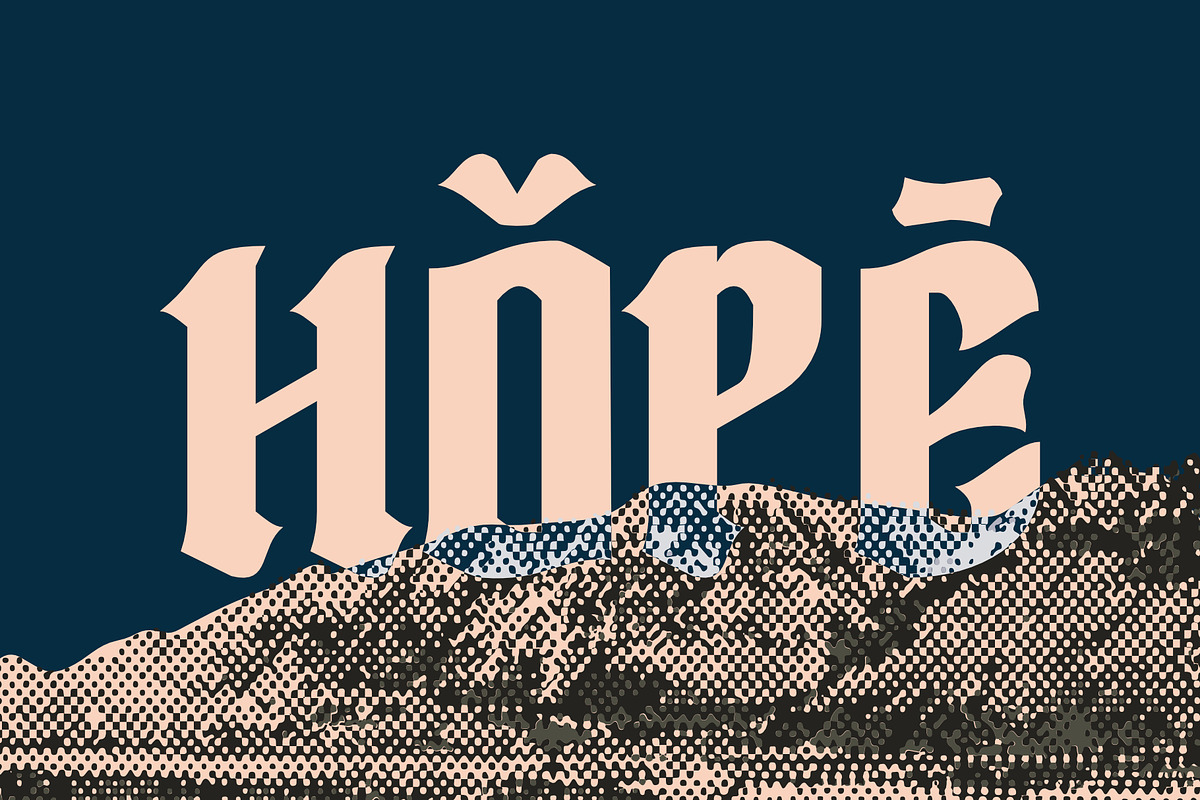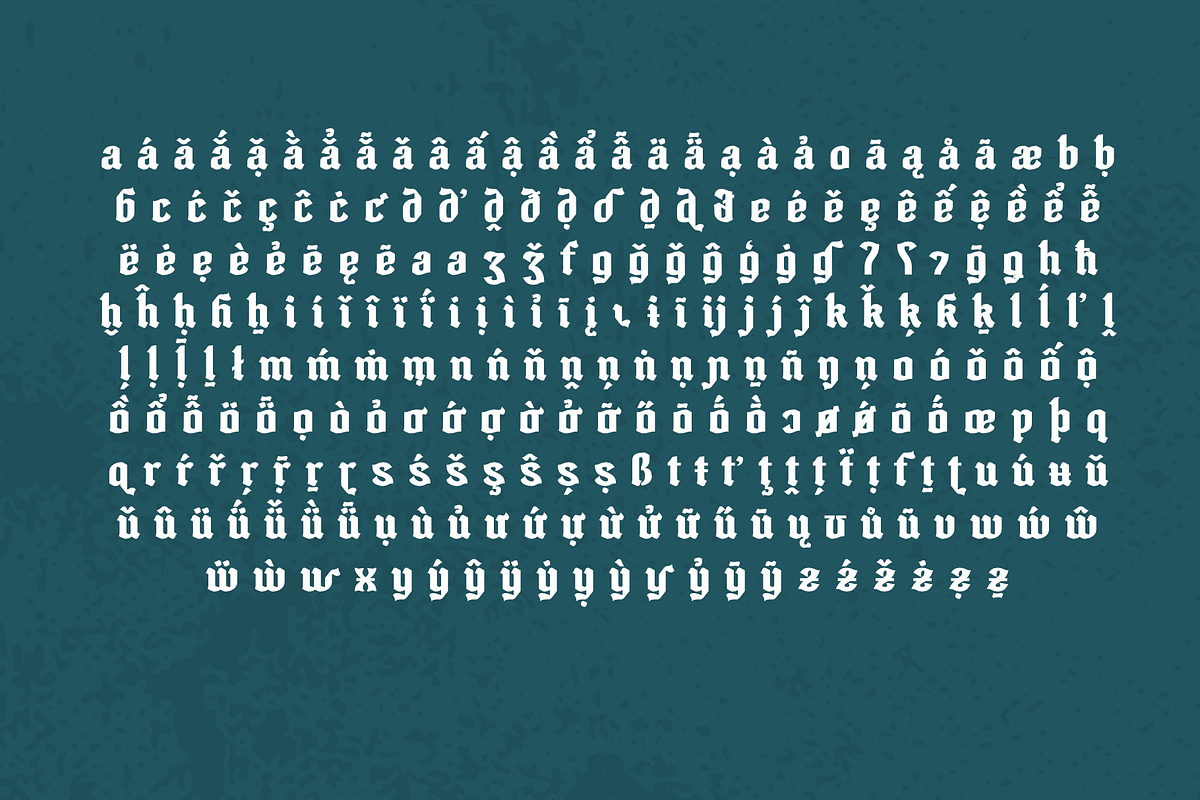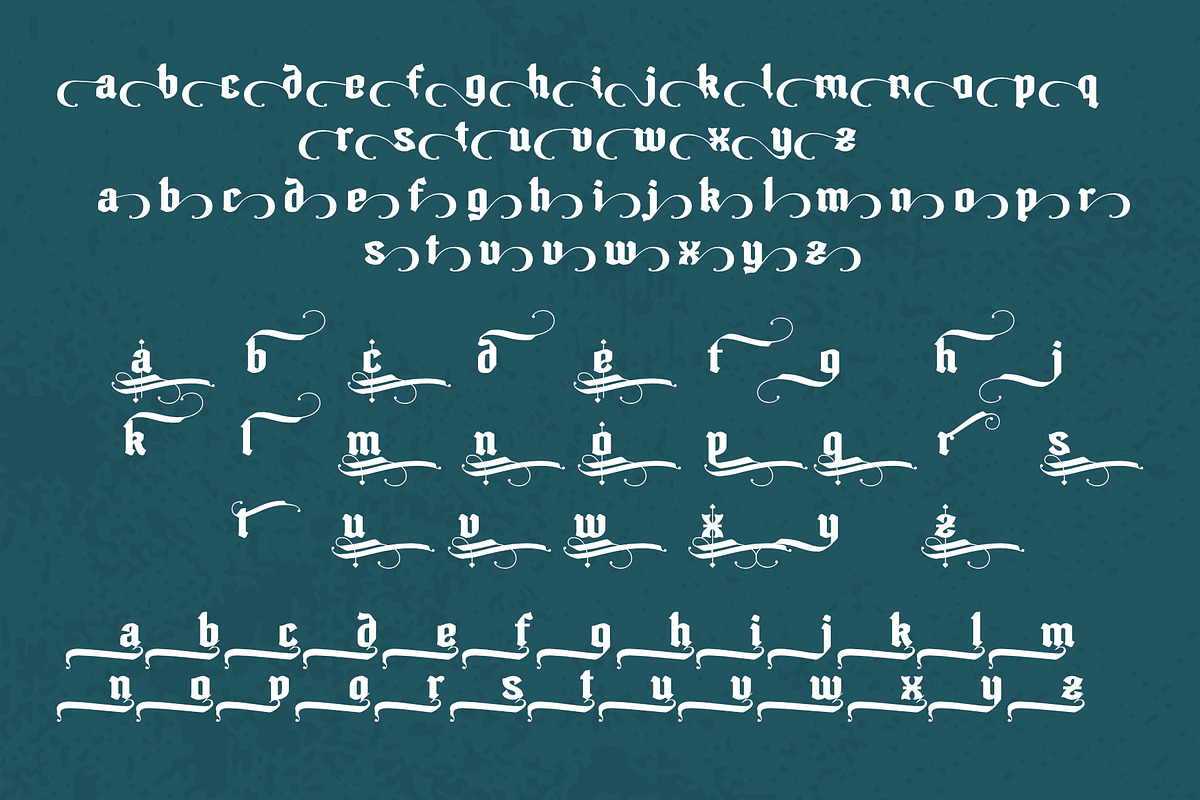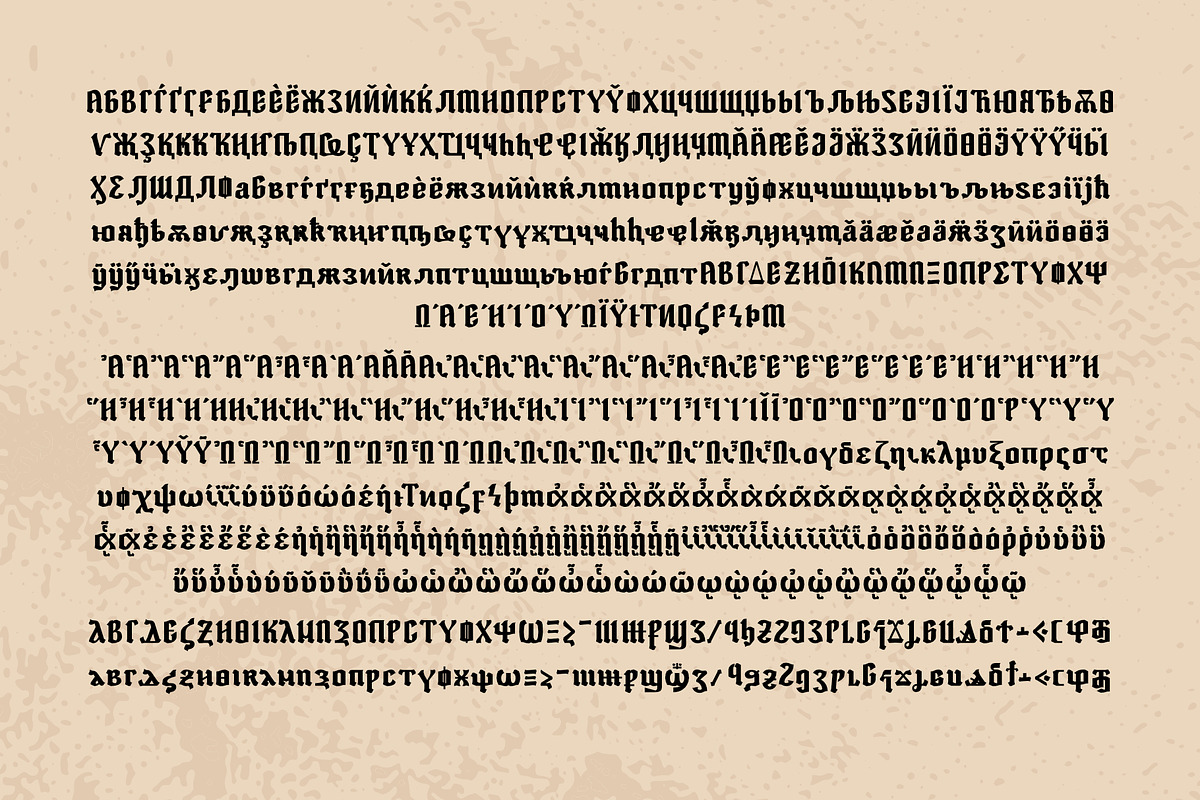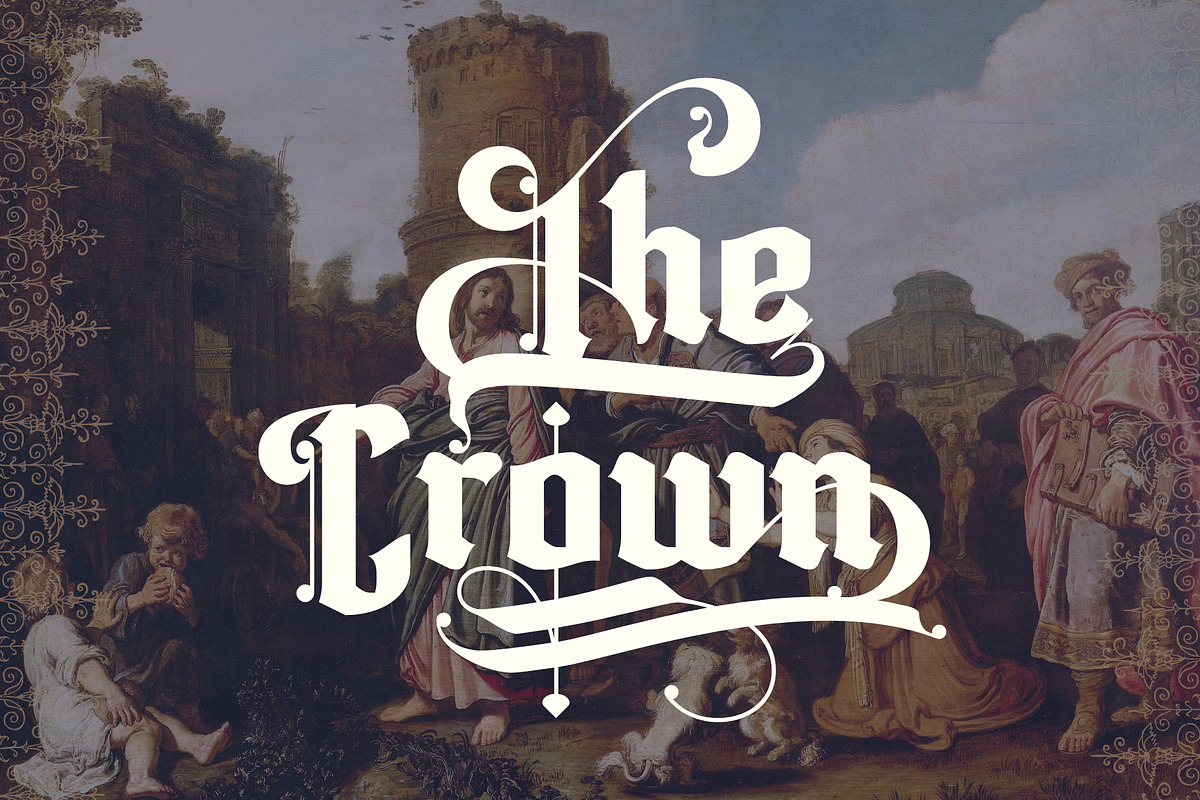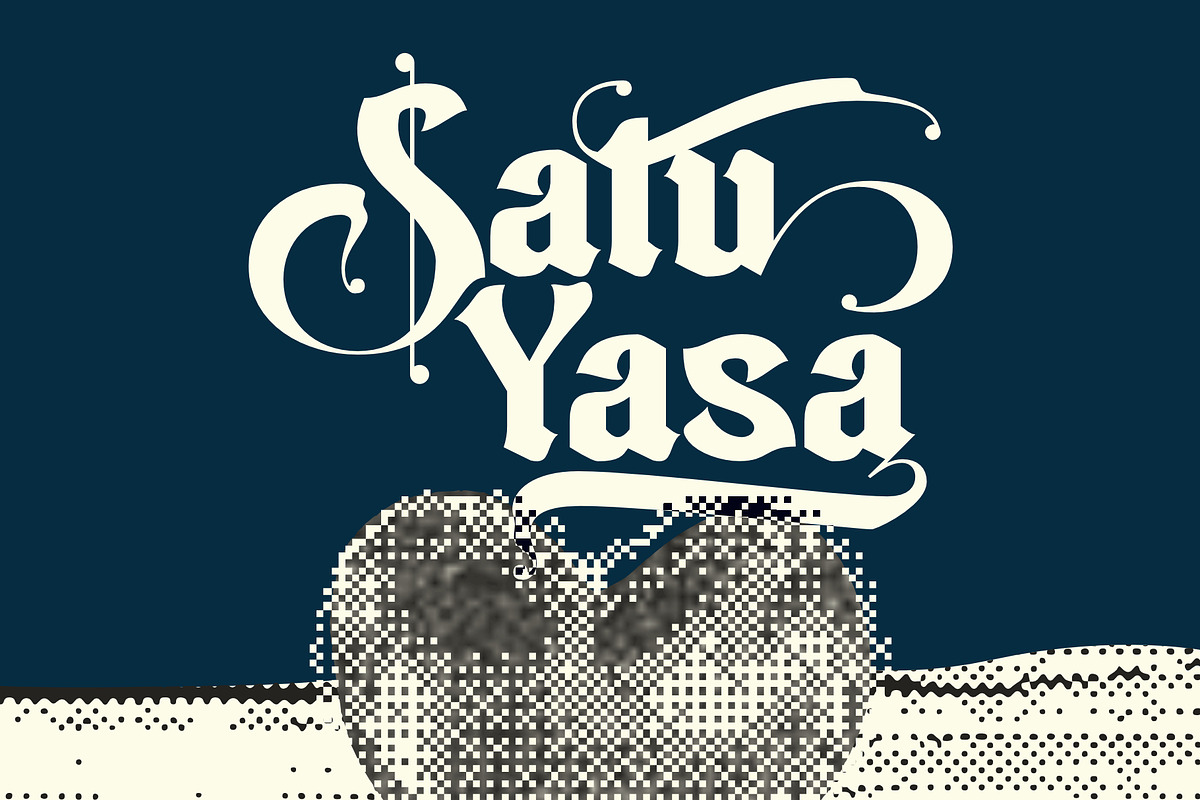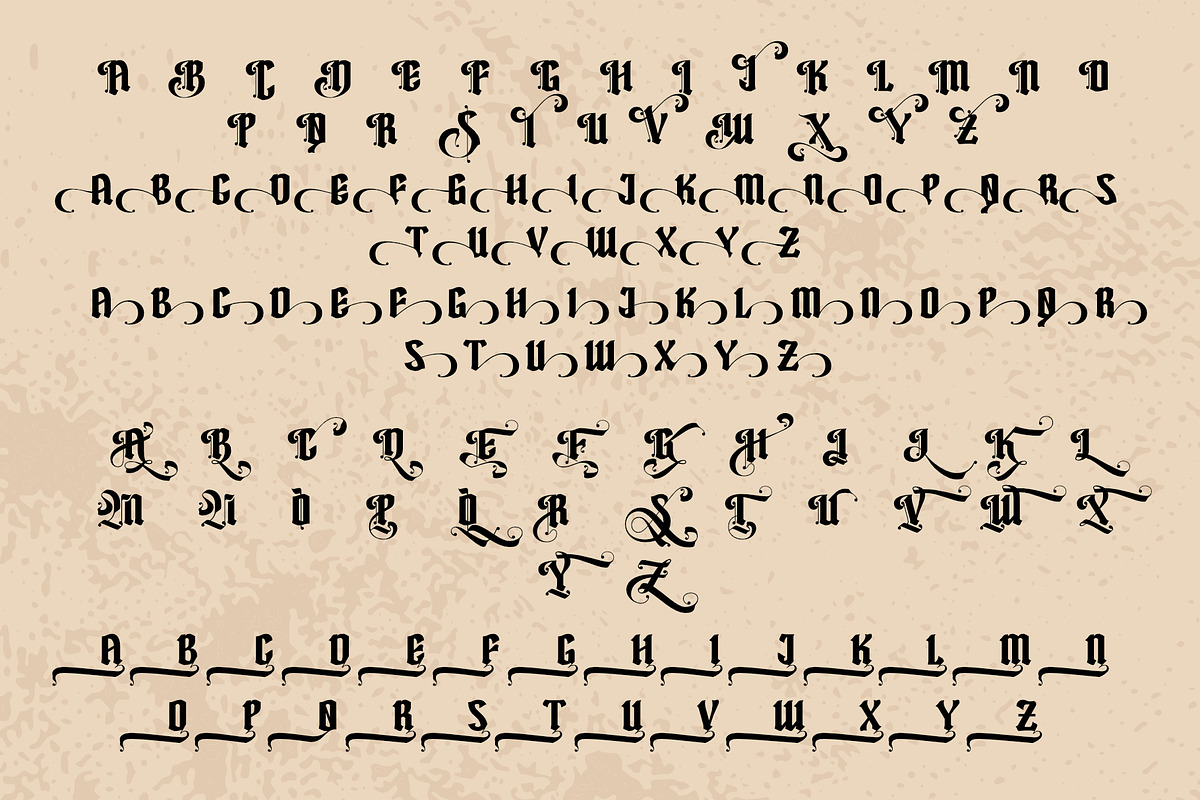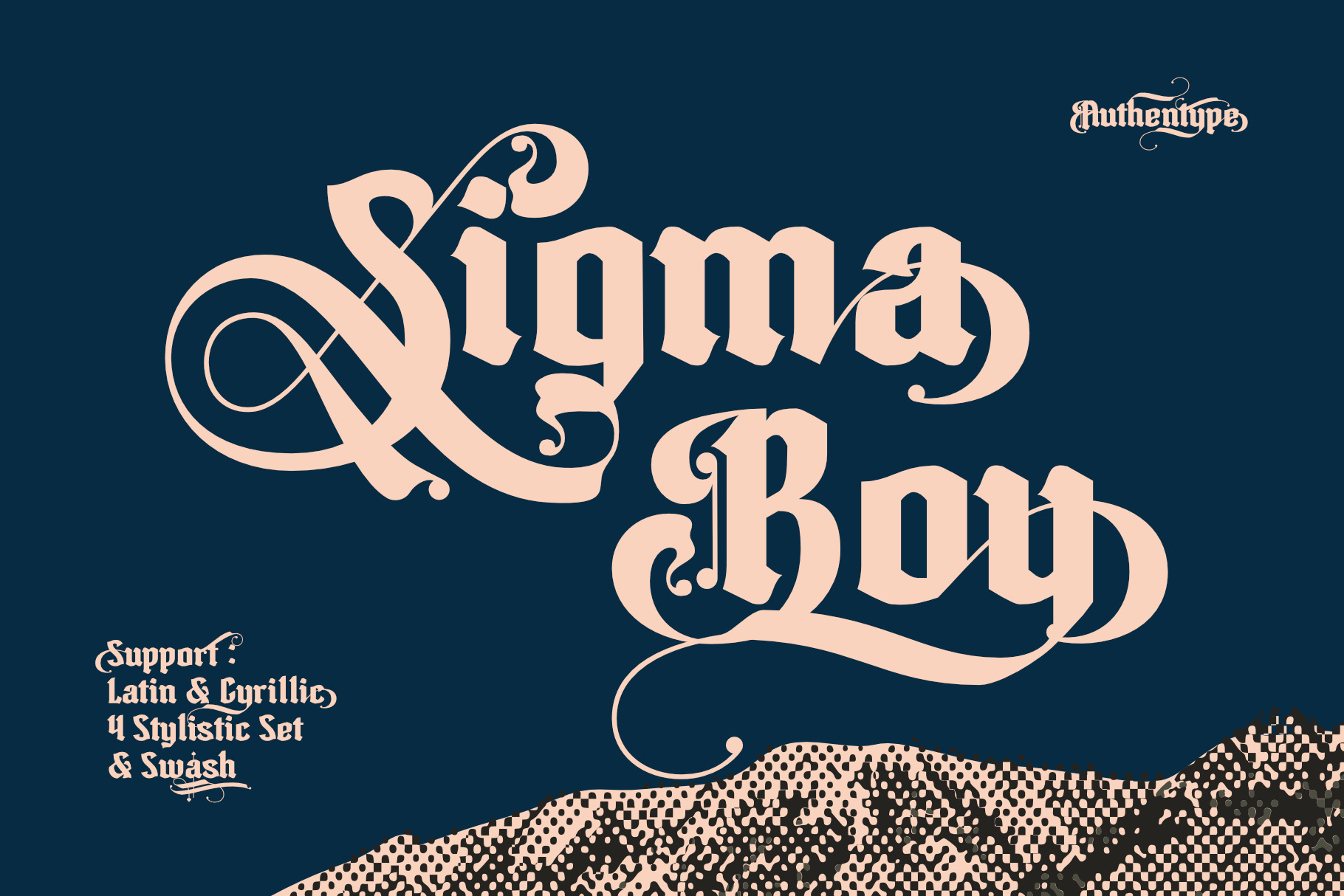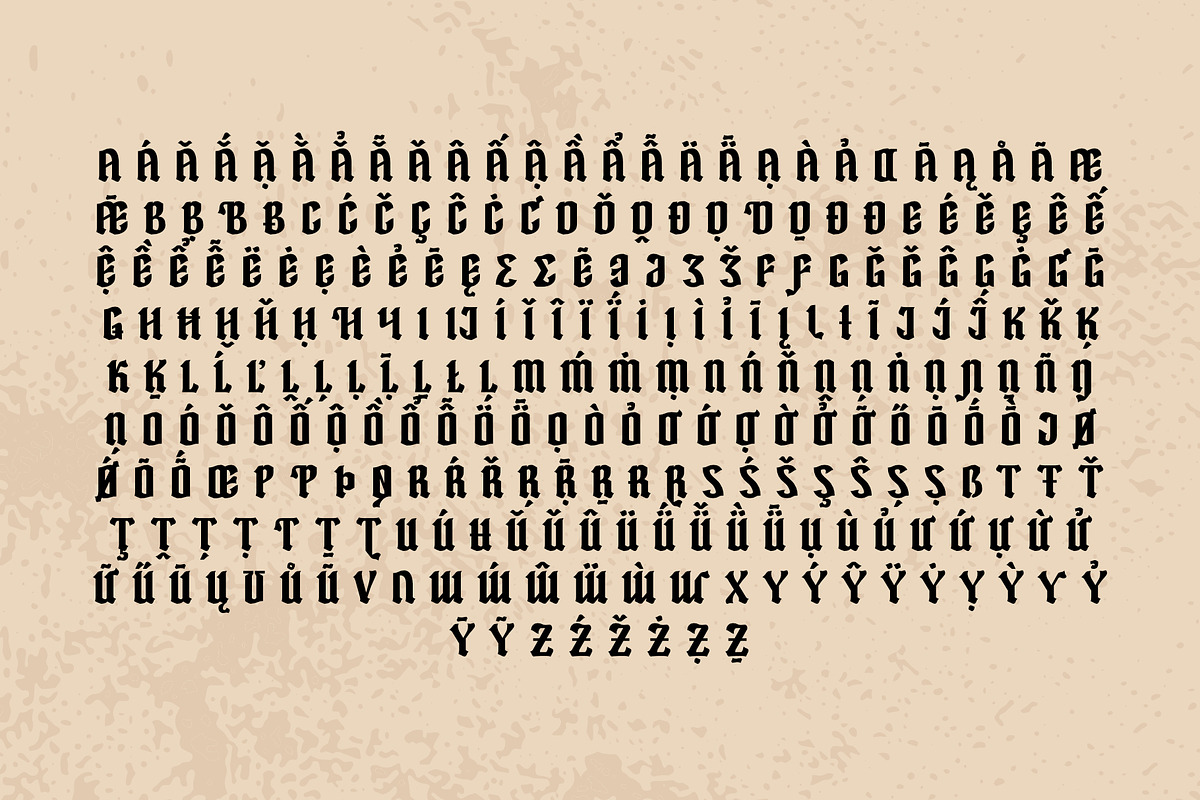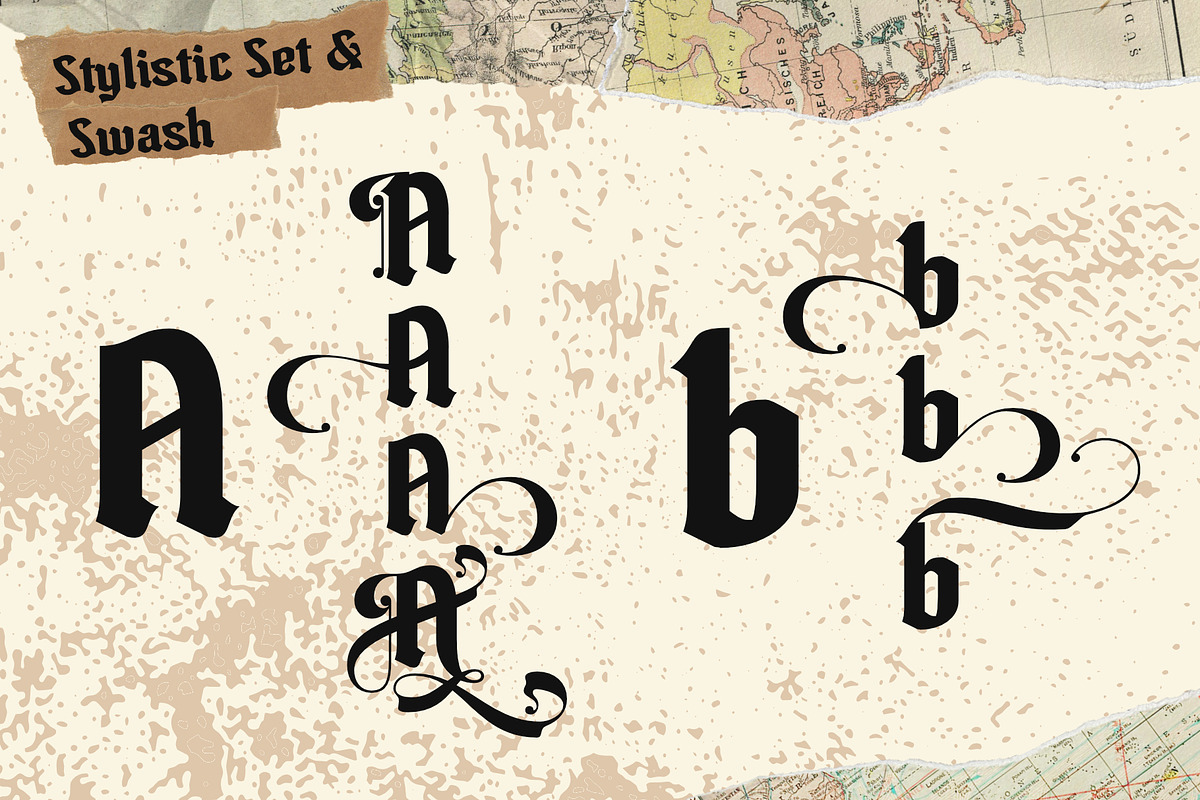
Sigma Boy – Elegant Blackletter Font
Sigma Boy – elegant blackletter font is a stylish and versatile blackletter font with strong character details and a modern touch. Designed for elegance and flexibility, this font supports multiple languages and offers four stylistic sets along with beautifully crafted swashes. Whether for branding, headlines, or creative designs, Sigma Boy adapts effortlessly to your needs, giving your projects a bold yet refined look.
Design Function Sigma Boy is an excellent choice for: 1 Logos – Its elegant yet bold style makes it ideal for luxury branding, gothic designs, and high-impact visuals. 2 Branding – The distinctive character of Sigma Boy adds a strong identity to your brand, making it memorable and unique. 3 Posters – Perfect for vintage, gothic, or high-contrast promotional designs that demand attention. 4 Editorial Designs – Works well in magazines, book covers, and themed publications with a historical or artistic touch. 5 Websites – Enhances digital projects with a strong yet stylish blackletter aesthetic. Special Features
- Swashes • Includes elegant swashes on select letters, perfect for creating decorative and artistic typography.
- Stylistic Sets • Offers four alternative letter styles, allowing creative customization and flexibility in design.
- Multilingual Support • Fully supports various scripts, including: – Latin with diacritics – Covers multiple European languages. – Cyrillic – Supports Eastern European and Slavic languages.
- 4 Alternate Styles • Unlock unique character variations for dynamic and expressive typography.